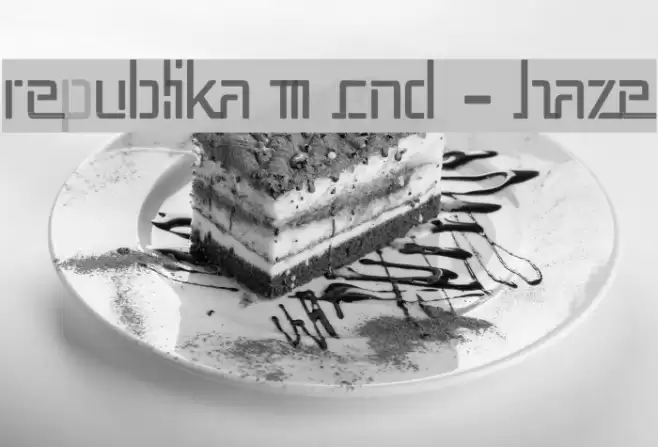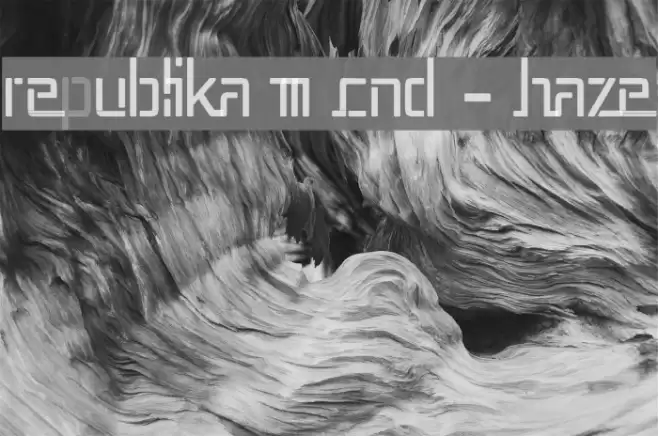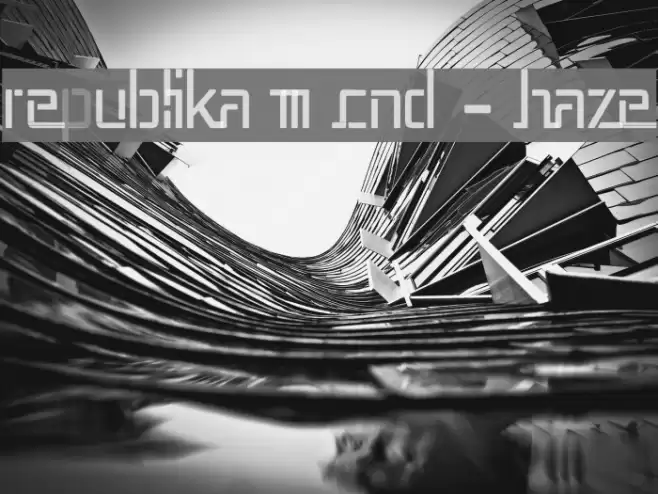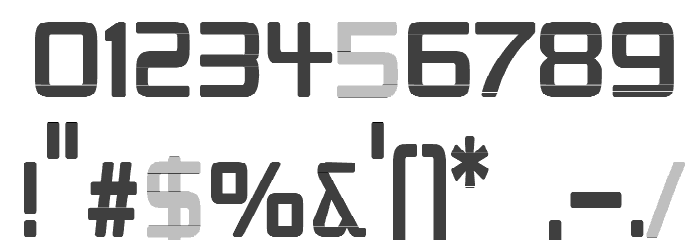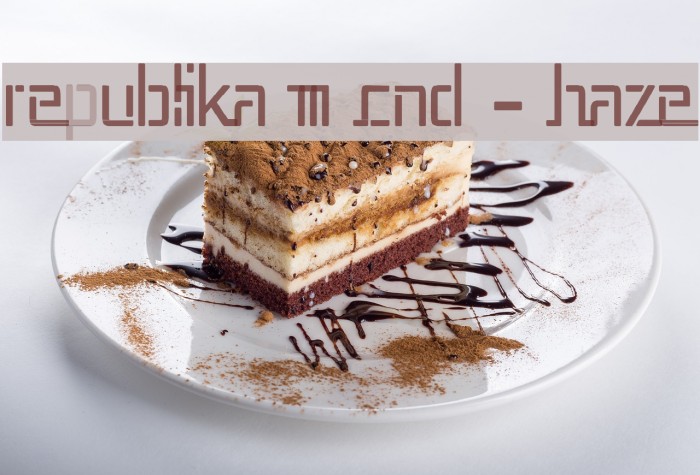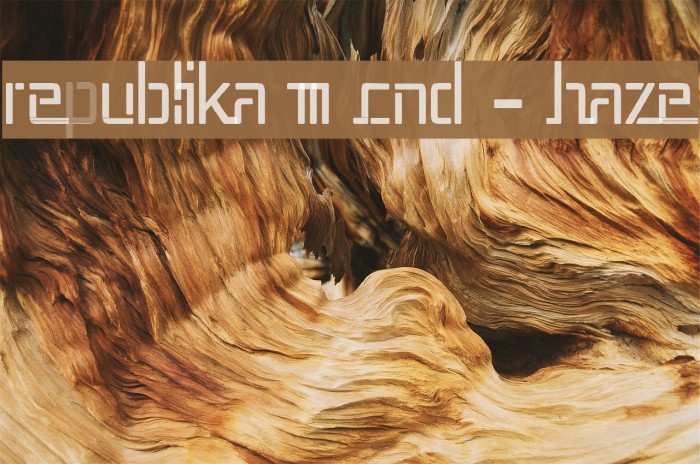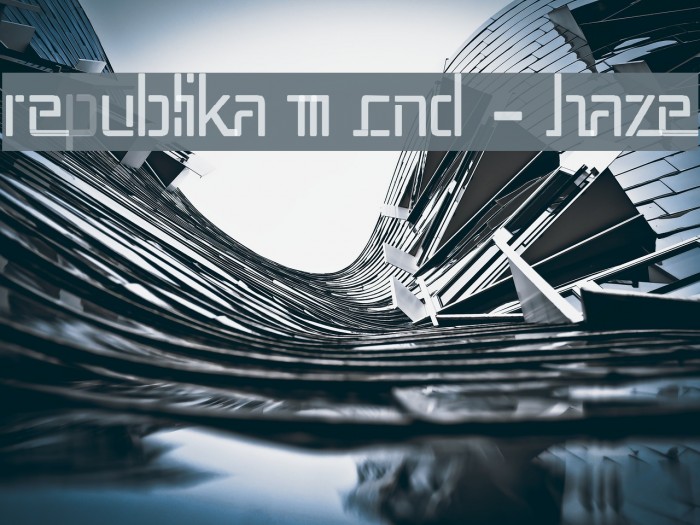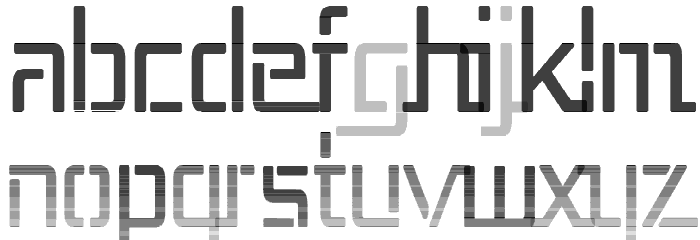
Republika III Cnd - Haze Font
Republika III Cnd - Haze Description
This font features a futuristic and geometric design with a condensed structure. The characters are composed of straight lines and sharp angles, giving it a modern and tech-inspired appearance. The uppercase and lowercase letters maintain a consistent height, contributing to a uniform look. The numerals are bold and easily distinguishable, while the special characters are designed to match the overall aesthetic. The font's unique style makes it suitable for digital and sci-fi themed projects.
A futuristic, geometric font with a condensed and tech-inspired design from Uncategorized fonts.
- Proposed Projects: Ideal for digital interfaces, sci-fi posters, tech branding, and modern advertising.